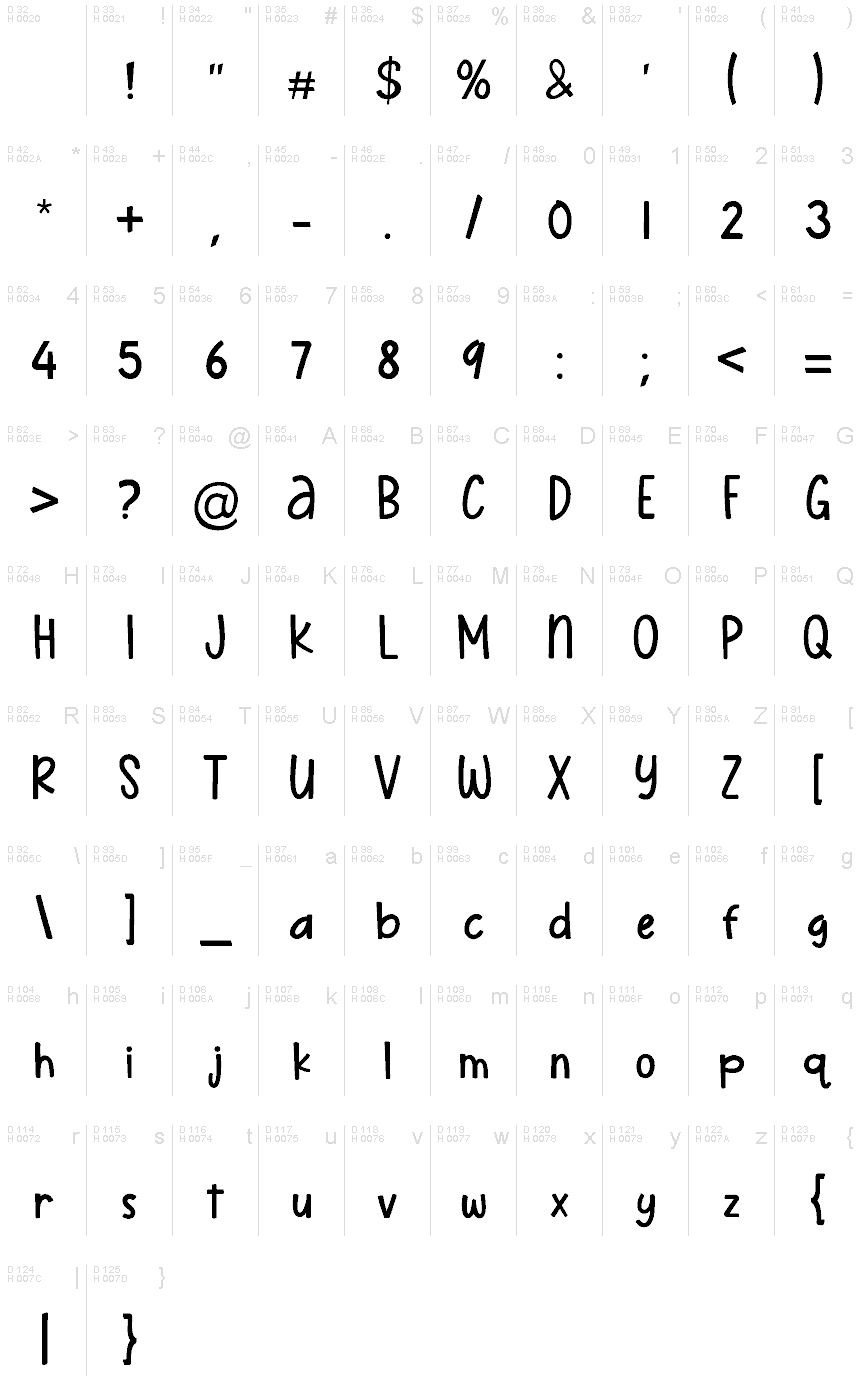
JourneyKidders
Journey Kidders font by UI Creative is a free handwritten font in which simplicity and authenticity form their own beauty. It has an approachable aesthetic with casual, friendly, and inviting letters that are easily readable. A subtle play with the thickness of the lines is presented in some letters for a versatile and modern display.
Use Journey Kidders to take your packaging designs to the next level by transforming them with logotypes of brand names or body texts that hold product info. The font can also be added to fashion magazine headers, poster designs, signages, online blogs, websites, and social media branding.